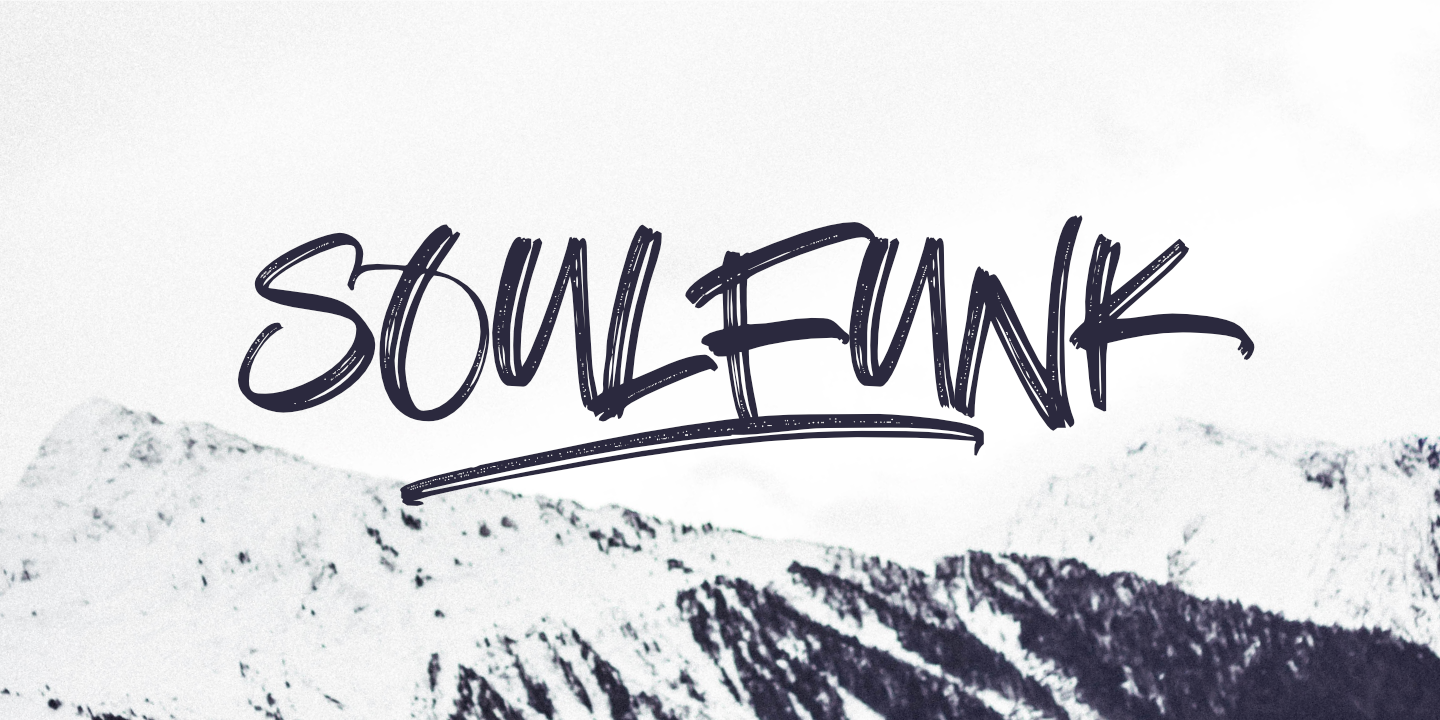
Soulfunk Font is ideal for soul music album covers, funk band branding, retro disco graphics, vintage R&B promotions, groove-themed events, dance club signage, rhythm and blues venues, funky restaurant branding, soulful music festivals, and any vibrant project that celebrates the infectious rhythm and emotional depth of soul and funk music culture with authentic urban groove and timeless musical expression.
What makes Soulfunk Font exciting is its rhythmic soul that captures the infectious groove of funk music and the emotional depth of soul singers who pour their hearts into every note. This typeface embodies the essence of musical passion with flowing letterforms that seem to dance to an internal rhythm and pulse with the same energy that makes people move their bodies to the beat. The font's musical character makes it perfect for brands and projects that want to communicate rhythm, emotion, and the transformative power of music that touches both body and soul.
The Soulfunk Font family includes multiple weights and groove variations, featuring light, regular, and bold versions along with rhythmic alternates and musical elements that enhance the font's soulful appeal. This comprehensive collection allows designers to create authentically musical typography that maintains the font's signature rhythmic character while providing flexibility for various music and entertainment design applications.
When exploring authentic soul music typography, Soulfunk Font Free Download represents an exceptional opportunity to work with a typeface that genuinely captures the spirit of funk and soul music culture. This font demonstrates innovative design thinking by incorporating the flowing rhythm and emotional expressiveness that define both classic soul music and the contemporary appreciation for authentic musical groove and artistic expression.
Professional designers appreciate Soulfunk Font for its ability to instantly communicate musical authenticity and rhythmic energy across various entertainment and cultural platforms. The font's soulful character makes it particularly effective for music venues, record labels, and entertainment brands seeking to establish genuine connections with audiences who understand the profound emotional impact of soul and funk music.
The enduring appeal of Soulfunk Font lies in its perfect representation of musical soul and rhythmic groove that continues to influence contemporary music and culture. This typeface serves as a celebration of the African American musical traditions that gave birth to soul and funk, and the universal human need for music that moves both body and spirit.
For creative professionals working with music and entertainment brands, Soulfunk Font represents the ultimate typography solution that brings authentic soul music energy and funky rhythm to any application, ensuring designs reflect the emotional depth and infectious groove that define the most powerful and transformative musical experiences.